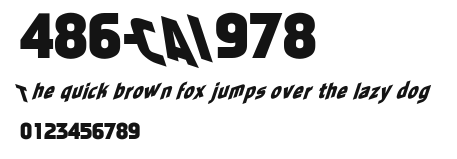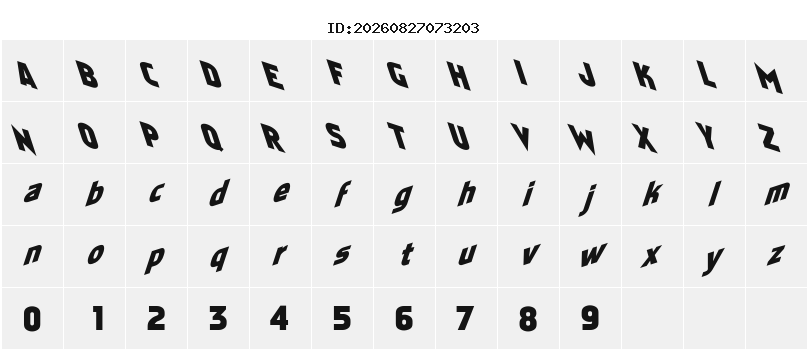
486-CAI978 Preview
About 486-CAI978.ttf
486-CAI978.ttf is a modern, elegant sans-serif font designed for ultimate readability and visual harmony. Perfect for branding, headlines, web design, and print materials.